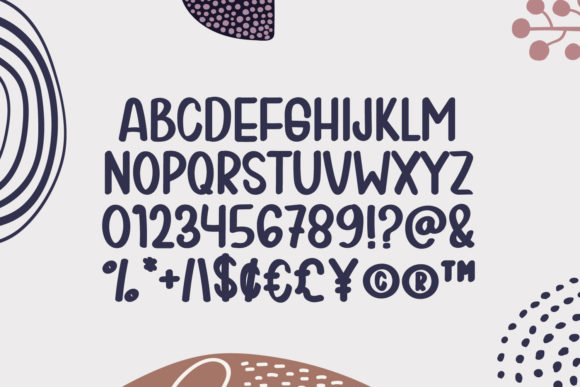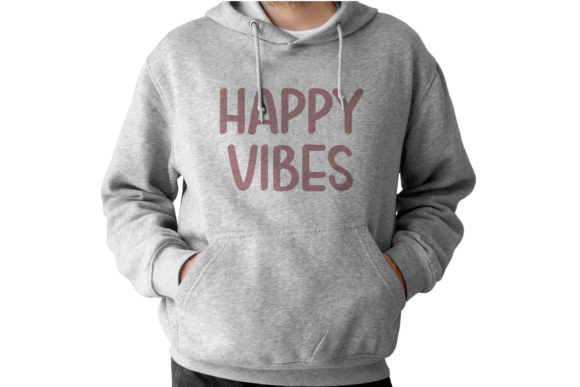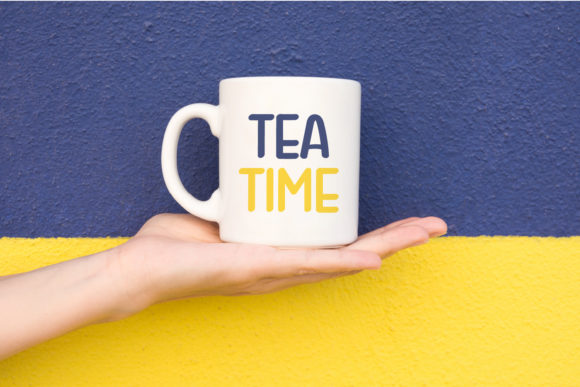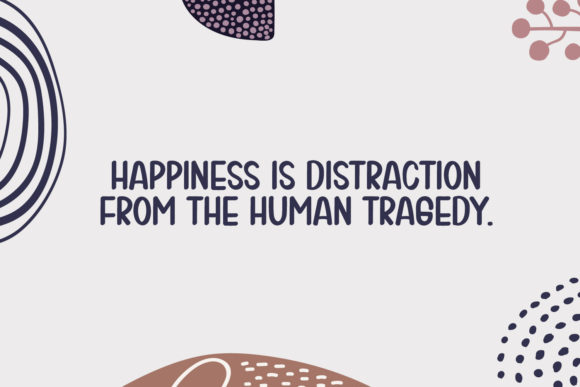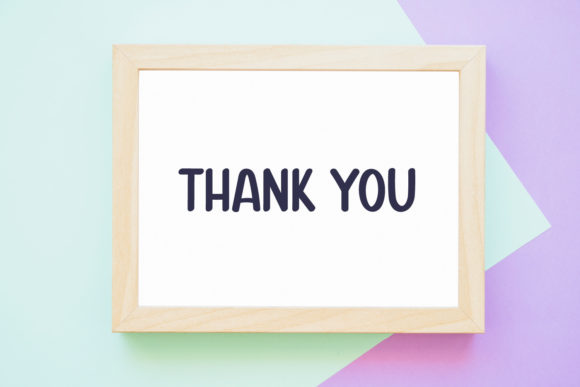
Introducing Happy Morning Font: Add a Lovely Touch to Your Designs
Are you looking for a font that can add a playful and charming touch to your designs? Look no further than Happy Morning Font! This fun, simple, and cute display font is perfect for a variety of creative projects, from cartoon-related designs to children’s games and more. In this article, we’ll take a closer look at Happy Morning Font and explore its features, benefits, and uses.
What is Happy Morning Font?
Happy Morning Font is a display font designed to bring a smile to your face. Its playful and cheerful design makes it perfect for projects that require a lighthearted and fun approach. The font features rounded edges, soft curves, and a carefree vibe that’s sure to capture the attention of your audience.
Key Features of Happy Morning Font
- Fun and playful design: Happy Morning Font is designed to be fun and engaging, making it perfect for projects that require a playful touch.
- Simple and easy to read: Despite its playful design, Happy Morning Font is simple and easy to read, making it perfect for use in a variety of contexts.
- Cute and charming: The font’s cute and charming design makes it perfect for projects that require a lovable and approachable feel.
- Versatile: Happy Morning Font can be used in a variety of creative projects, from digital designs to print materials.
Benefits of Using Happy Morning Font
So, why should you choose Happy Morning Font for your next project? Here are just a few benefits of using this amazing font:
- Adds a playful touch: Happy Morning Font can add a playful and fun touch to your designs, making them more engaging and attention-grabbing.
- Perfect for kids’ projects: The font’s cute and charming design makes it perfect for projects aimed at children, such as children’s games, books, and educational materials.
- Unique and creative: Happy Morning Font is a unique and creative font that can help your designs stand out from the crowd.
Uses of Happy Morning Font
Happy Morning Font is a versatile font that can be used in a variety of creative projects, including:
- Cartoon-related designs: The font’s playful and fun design makes it perfect for cartoon-related designs, such as character designs, animations, and comics.
- Children’s games: Happy Morning Font is perfect for children’s games, including educational games, puzzle games, and adventure games.
- Digital designs: The font can be used in a variety of digital designs, including social media graphics, blog posts, and website headers.
- Print materials: Happy Morning Font can also be used in print materials, such as posters, flyers, and brochures.
Tips for Using Happy Morning Font
Here are a few tips for using Happy Morning Font in your designs:
- Use it sparingly: Happy Morning Font is a display font, so it’s best to use it sparingly to add emphasis and interest to your designs.
- Pair it with other fonts: The font can be paired with other fonts to create a unique and creative look.
- Experiment with colors: Happy Morning Font looks great in a variety of colors, so don’t be afraid to experiment and find the perfect color scheme for your design.
In conclusion, Happy Morning Font is a fun, simple, and cute display font that’s perfect for adding a lovely touch to your designs. Its playful and charming design makes it perfect for a variety of creative projects, from cartoon-related designs to children’s games and more. With its ease of use, versatility, and unique design, Happy Morning Font is a great choice for designers and crafters looking to add a playful touch to their work.